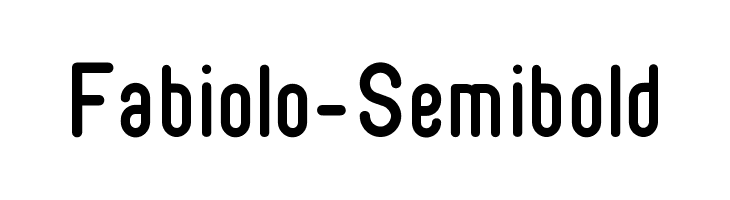
( Fonts by Iconian Fonts )
A bold, futuristic font with angular shapes and a sleek, modern design.
( Fonts by Iconian Fonts )
A bold, outlined font with a modern, futuristic look.
( Fonts by Iconian Fonts )
A bold, geometric font with rounded edges and a modern, futuristic style.
( Fonts by Xerographer Fonts )
A bold, hand-drawn font with dynamic, textured strokes.
( Fonts by StringLabs - stringlabscreative.com - Personal-use only. For commercial use please contact owner. )
A dynamic, cursive script font with a lively, handwritten style.
A bold, geometric font with a futuristic and angular design.
A bold, geometric, and condensed font with a futuristic style.
Bold, angular, and italicized font with a futuristic style.
A bold, italic, and geometric font with a futuristic style.